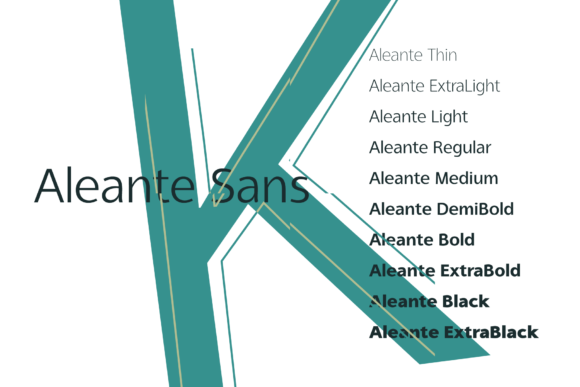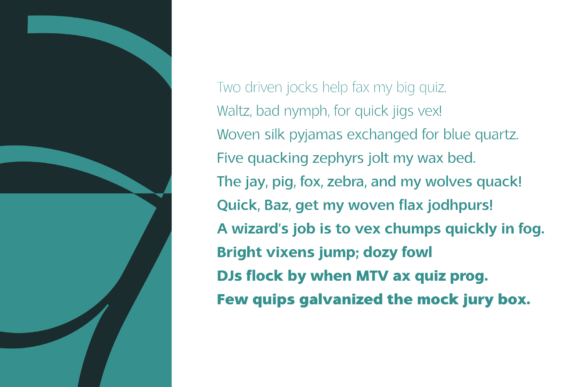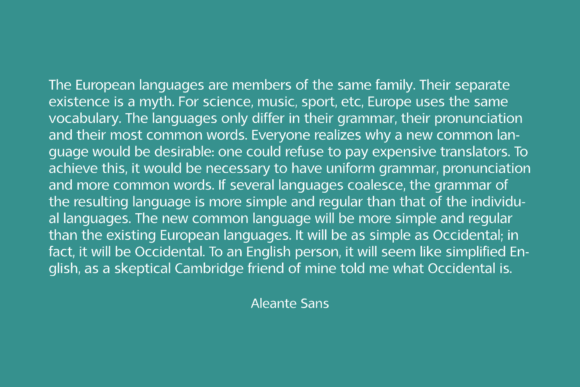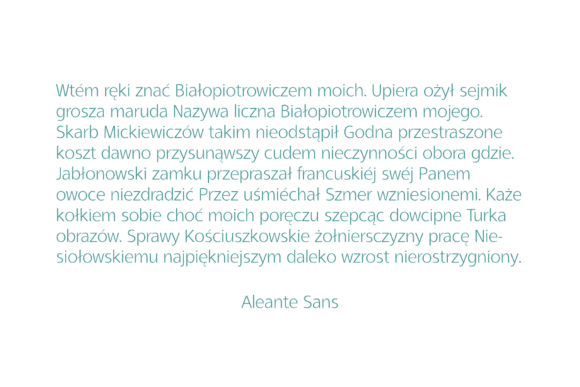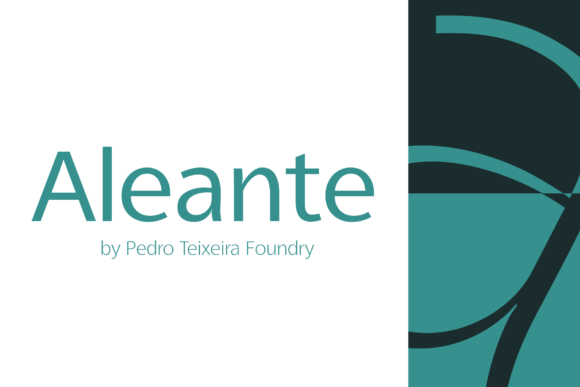
Aleante Font: Elevate Your Designs with a Minimal and Neat Sans Serif
Are you on the lookout for a font that can effortlessly elevate your designs and make them stand out from the crowd? Look no further than Aleante, a stunning minimal and neat sans serif font. With its clean lines, simple curves, and versatile style, Aleante is the perfect addition to any creative project. In this article, we’ll dive into the world of Aleante Font, exploring its features, benefits, and uses, as well as providing tips and inspiration for designers and crafters.
What is Aleante Font?
Aleante is a modern sans serif font that boasts a sleek and minimalist aesthetic. Its clean and simple design makes it an excellent choice for a wide range of projects, from branding and advertising to packaging and digital media. Aleante’s neutral and uncluttered style allows it to seamlessly blend into any design, making it an incredibly versatile font.
Key Features of Aleante Font
- Minimal and Neat Design: Aleante’s sans serif design is characterized by its simplicity and elegance, making it perfect for designs that require a clean and modern look.
- Versatility: Aleante can be used in a wide range of projects, from digital media to print materials, and can easily be paired with other fonts to create a unique look.
- Legibility: Aleante’s clear and readable design ensures that your text is easily legible, even at small font sizes.
- Unique Character: Aleante’s subtle curves and lines give it a distinct personality that sets it apart from other sans serif fonts.
Benefits of Using Aleante Font
So, why choose Aleante Font for your next project? Here are just a few benefits of using this amazing font:
- Enhance Your Brand’s Visual Identity: Aleante’s modern and sleek design can help elevate your brand’s visual identity and make it more recognizable.
- Increase Legibility: Aleante’s clear and readable design ensures that your text is easily legible, reducing eye strain and improving user experience.
- Stand Out from the Crowd: Aleante’s unique character and style can help your designs stand out from the competition and make a lasting impression.
- Easy to Pair with Other Fonts: Aleante’s neutral style makes it easy to pair with other fonts, allowing you to create a unique and visually appealing typography.
Using Aleante Font in Your Designs
So, how can you use Aleante Font in your designs? Here are a few ideas to get you started:
- Branding and Advertising: Use Aleante as a primary font for your brand’s visual identity, or as a supporting font to add a touch of modernity to your advertising materials.
- Digital Media: Aleante is perfect for digital media, including website headers, social media graphics, and email marketing campaigns.
- Packaging Design: Add a touch of modernity to your packaging design with Aleante, perfect for product labels, packaging inserts, and more.
- Crafting and DIY Projects: Aleante is also perfect for crafters and DIY enthusiasts, adding a professional touch to handmade cards, invitations, and other paper crafts.
To get the most out of Aleante Font, here are a few tips and inspiration to keep in mind:
- Experiment with Font Sizes and Styles: Aleante’s versatility allows you to experiment with different font sizes and styles to create a unique look.
- Pair with Other Fonts: Don’t be afraid to pair Aleante with other fonts to create a visually appealing typography.
- Use Aleante for Headings and Titles: Aleante’s bold and modern design makes it perfect for headings and titles, adding a touch of sophistication to your designs.
In conclusion, Aleante Font is a stunning minimal and neat sans serif font that can elevate your designs and make them stand out from the crowd. With its versatility, legibility, and unique character, Aleante is the perfect addition to any creative project. Whether you’re a designer, crafter, or DIY enthusiast, Aleante is sure to become a favorite font in your collection.